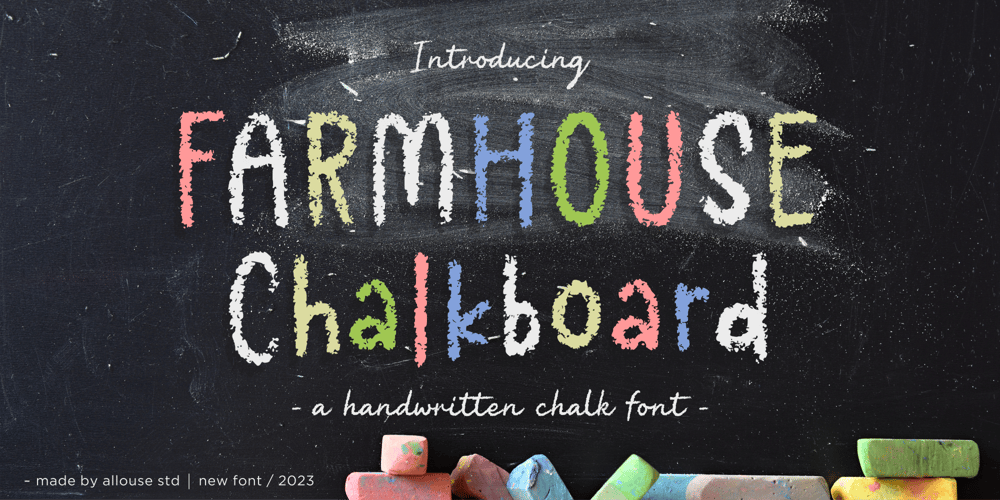
Farmhouse Chalkboard Font Family was designed by Fachrizal Yusuf and published by Allouse Studio. Farmhouse Chalkboard contains 1 styles and family package options. Proudly Presenting, Farmhouse Chalkboard A Decorative Chalk Font.Farmhouse Chalkboard is perfect for any titles, logo, product packaging, branding project, megazine, social media, wedding, or just used to express words above the background.Farmhouse Chalkboard also come with Multi-Lingual Support.Enjoy the font, feel free to comment or feedback, send me PM or email. Thank You!